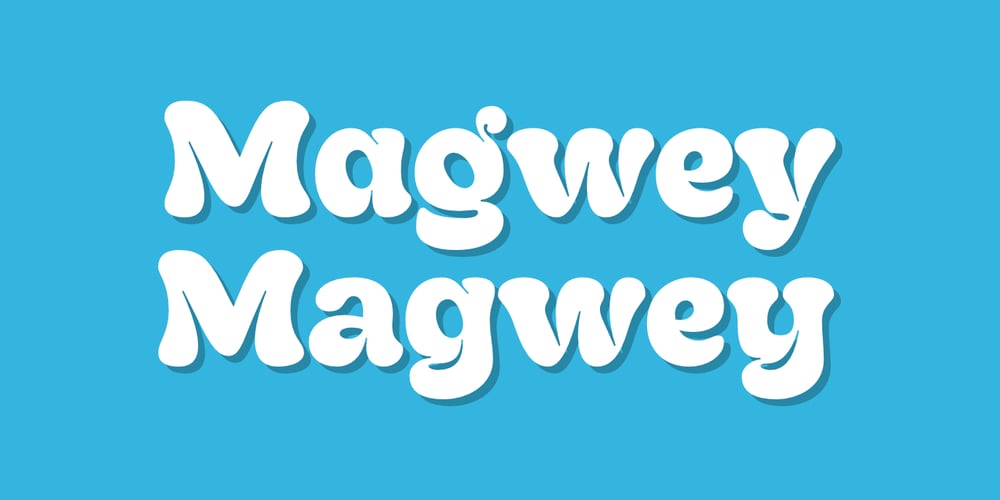
Magwey
Magwey font
Magwey Font Family was designed by Muhammad Hastian and published by Hazztype. Magwey contains 1 styles and family package options. Magwey is a fun and friendly retro groovy font, with experimental ink traps. suit for magazine cover, brochure, logos, Headlines or Quotes, Stand alone displays, and short paragraphs or contents.